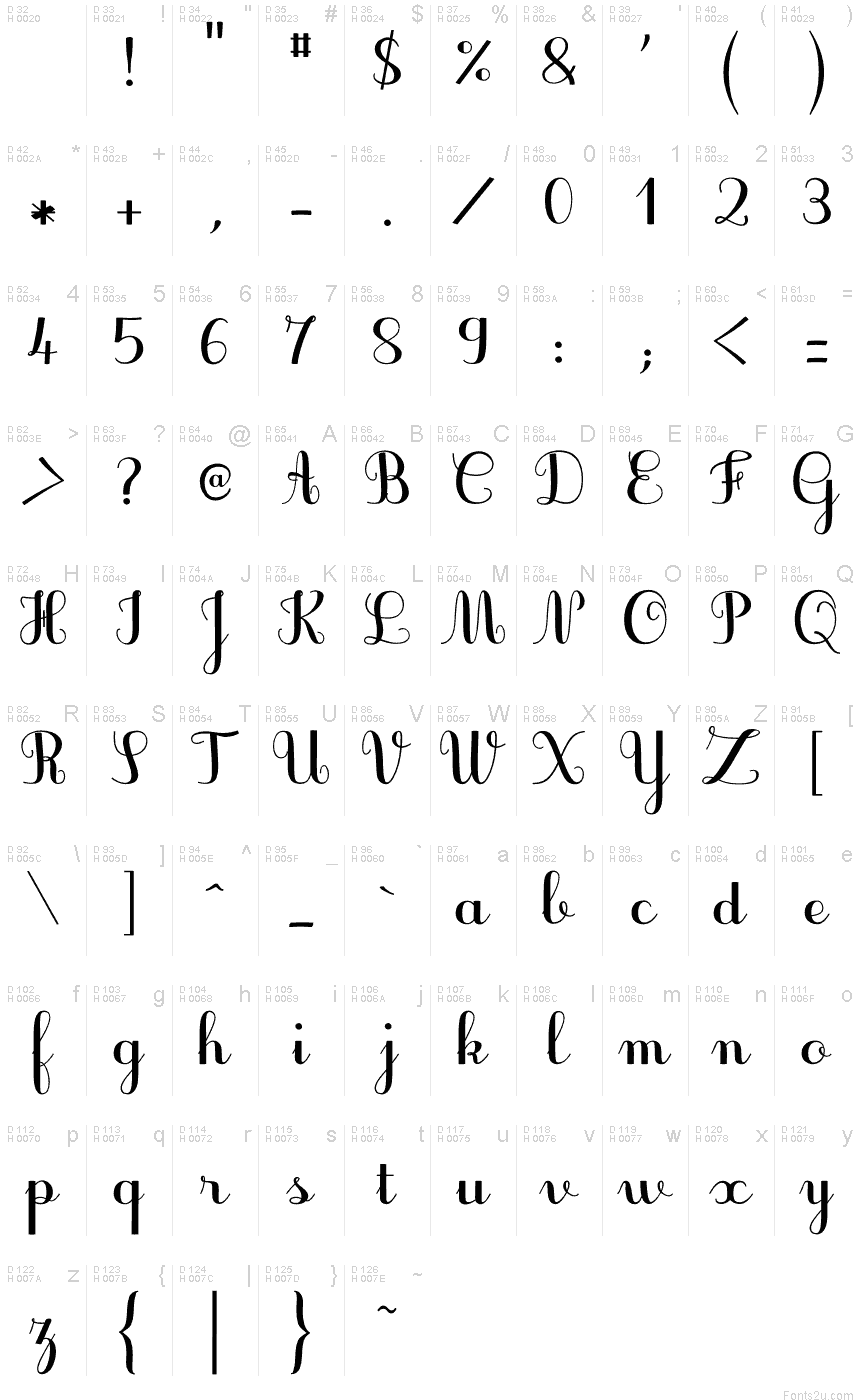
JBCursive-V3 Bold
JB Cursive V3 Bold, created by Jean Boyault of JB Foundry, is a free calligraphic script with towering forms, emphatic thick-thin strokes, and sweeping flourishes that reach far beyond the letters. Its long loops create a formal, theatrical silhouette.
Romance and celebration are its clearest subjects, making it suited to wedding invitations, fashion packaging, and event posters. On menus or confectionery branding, the oversized curls can become part of a border or ornamental emblem rather than serving as lettering alone.